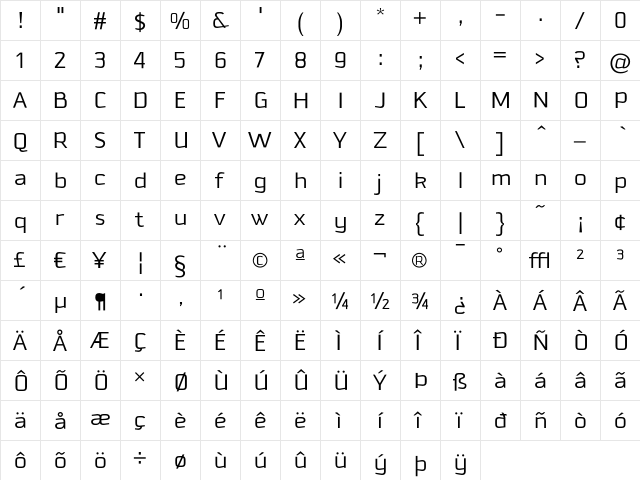
Downtempo Light
Design Context for Downtempo Typeface
Downtempo takes a measured approach to typography — its balanced proportions and neutral character make it a reliable workhorse for both digital and print work. The delicate stroke weight brings airiness and refinement to layouts.
Pro Tip: Pair Downtempo with a font of contrasting weight or personality to build a more expressive typographic hierarchy.